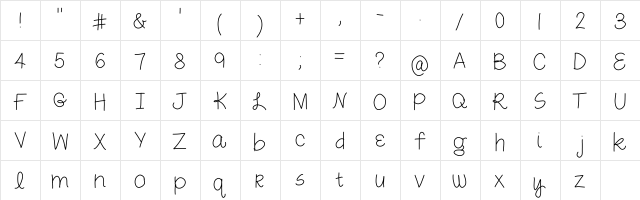
midnight snacks Medium
Design Context for midnight snacks Typeface
midnight snacks is a composed and adaptable typeface that performs quietly and consistently across a wide range of design contexts.